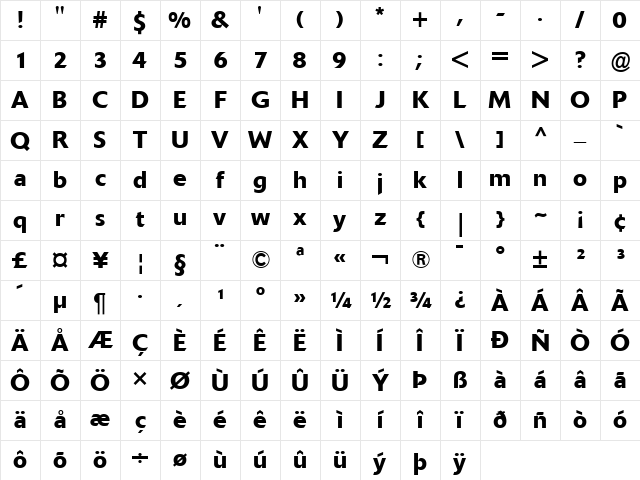
Delta Jaeger Bold
Design Context for Delta Jaeger
Delta Jaeger is a composed and adaptable typeface that performs quietly and consistently across a wide range of design contexts. Its bold stroke weight gives it real presence on the page.